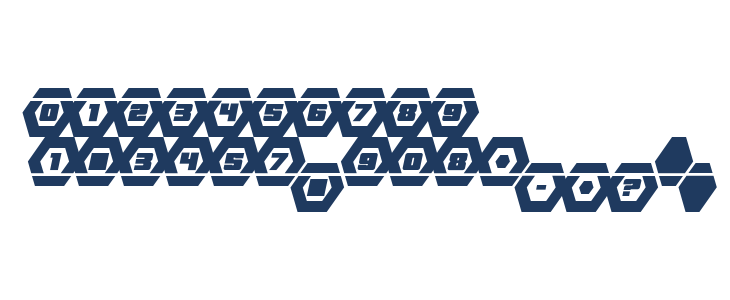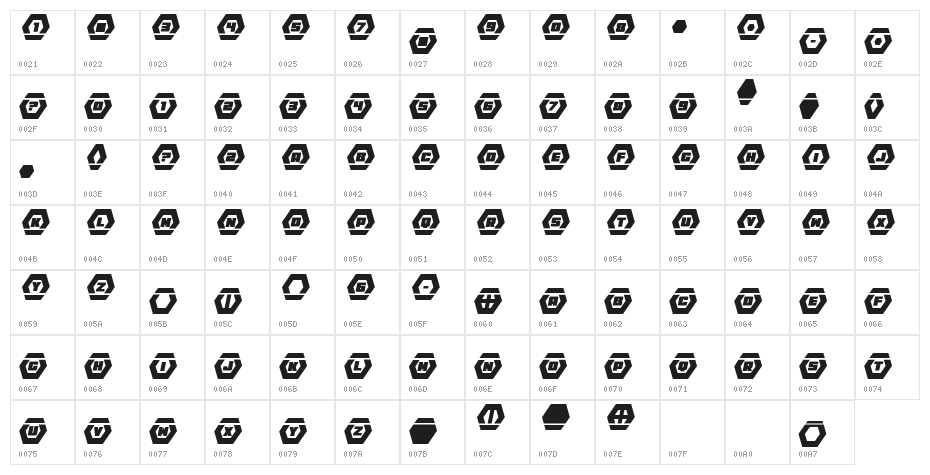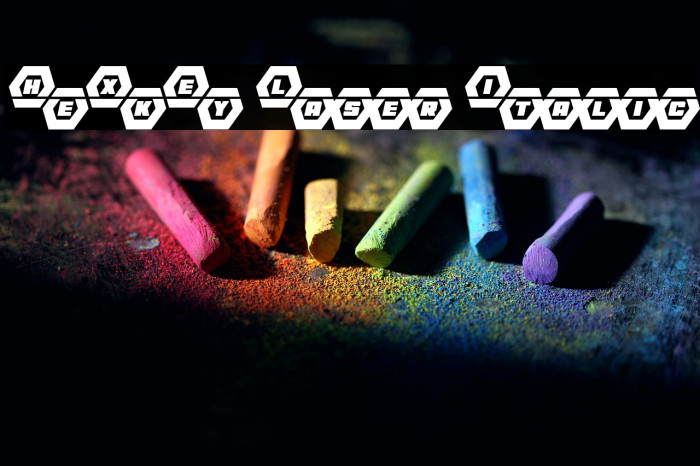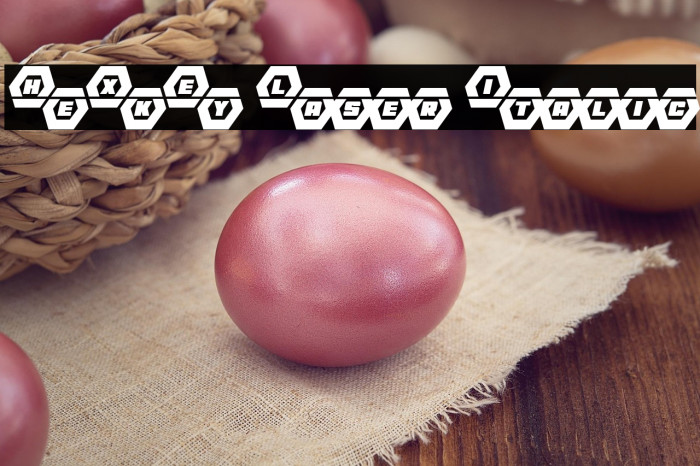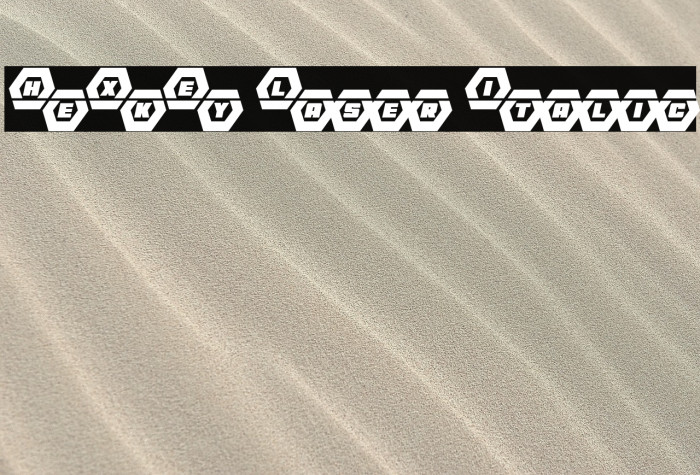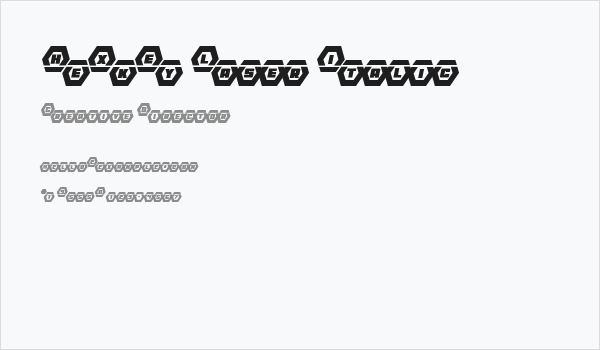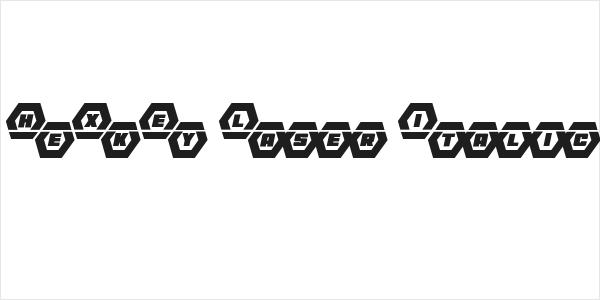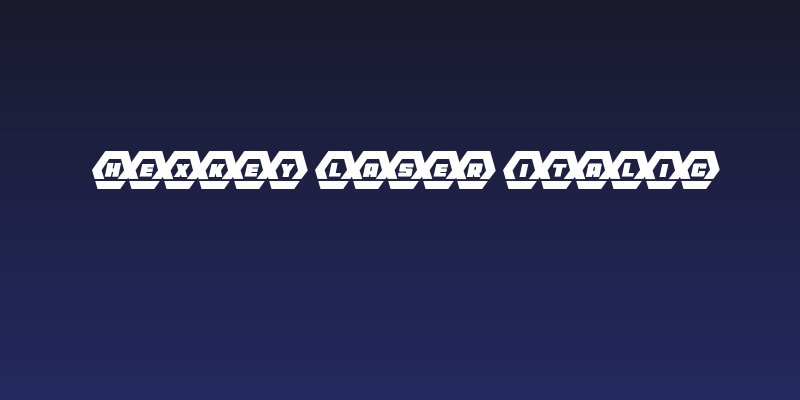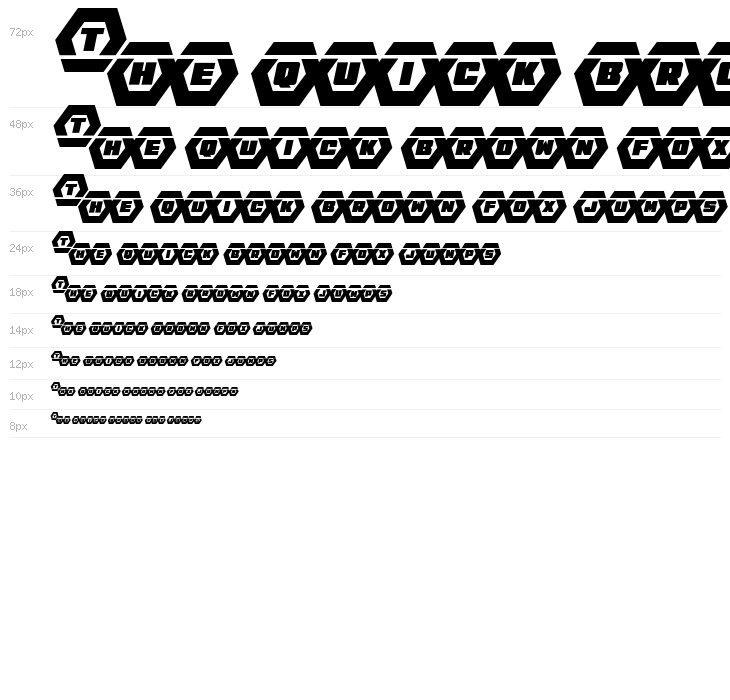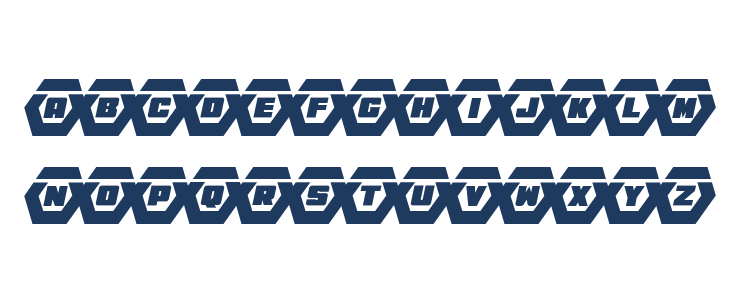
HeXkEy Laser Italic Font
HeXkEy Laser Italic Description
This font features a bold, geometric design with each character enclosed in a hexagonal shape, giving it a futuristic and industrial appearance. The characters are italicized, adding a dynamic and forward-leaning aspect to the overall style. The use of thick, uniform strokes throughout the design contributes to a strong visual impact, while the consistent hexagonal framing ensures a cohesive look across all characters. The font is highly stylized, making it suitable for projects that require a modern and edgy aesthetic. The angular design and bold presence make it ideal for attention-grabbing headlines or logos.
| Overall Style | Futuristic, Industrial |
| Proposed Projects | Ideal for sci-fi themed designs, tech company logos, video game titles, and futuristic posters. |